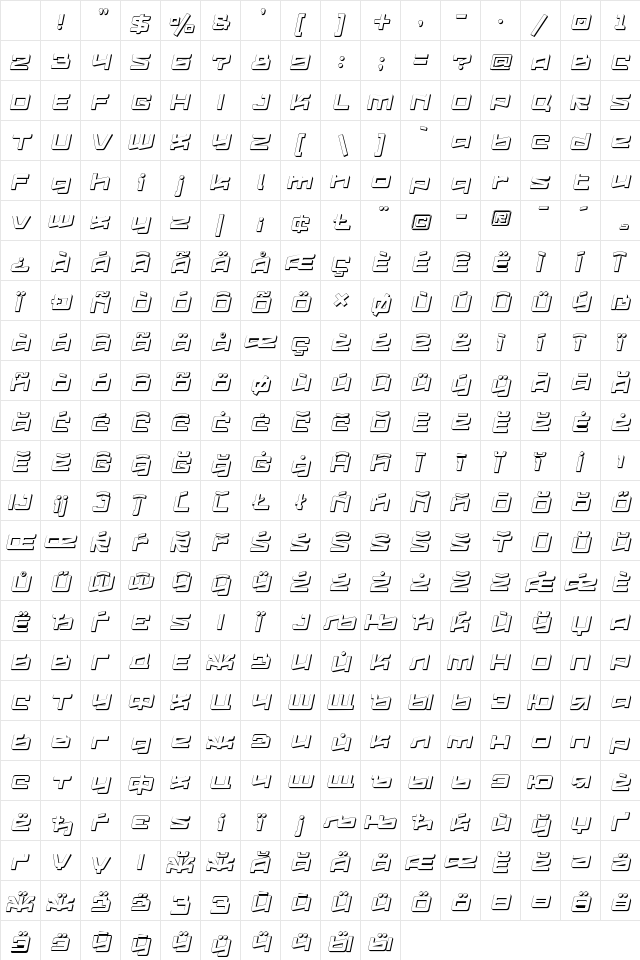
Logofontik 4F is a composed and adaptable typeface that performs quietly and consistently across a wide range of design contexts. The slanted form adds forward momentum and visual energy.
Pro Tip: Use Logofontik 4F for emphasis, pull quotes, and subheadings where its slanted energy can add rhythm to the layout.